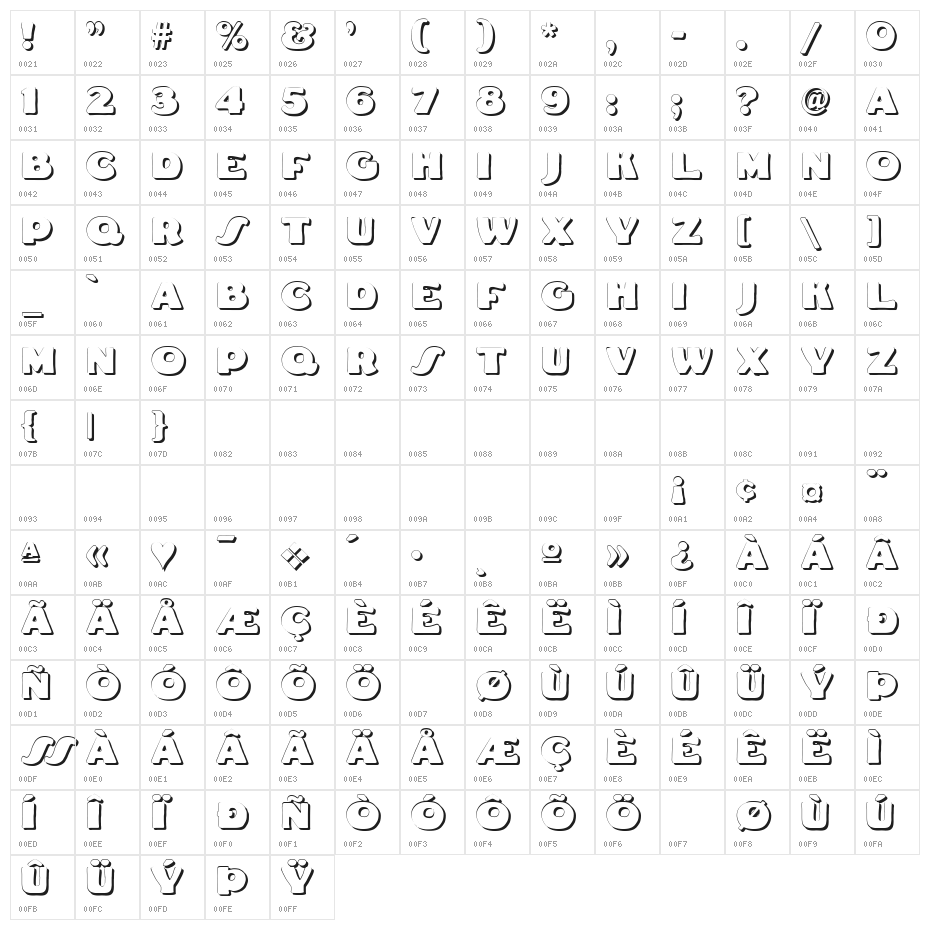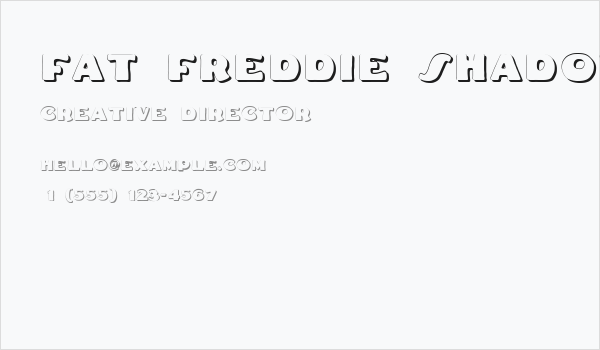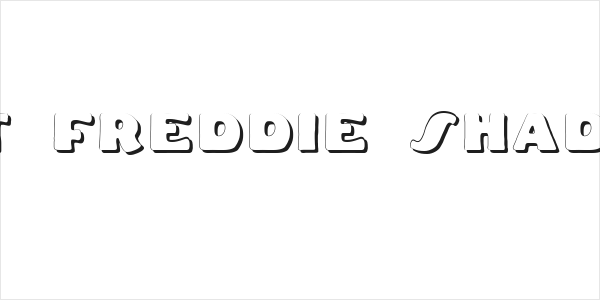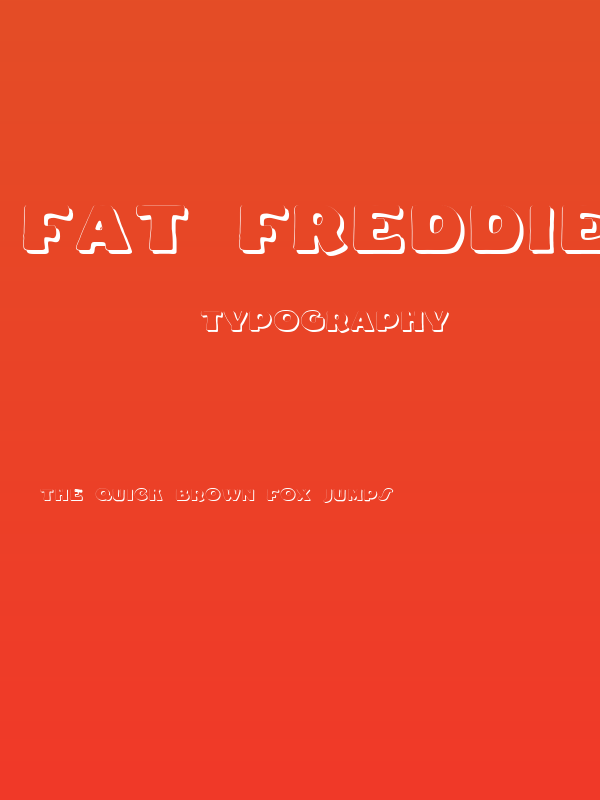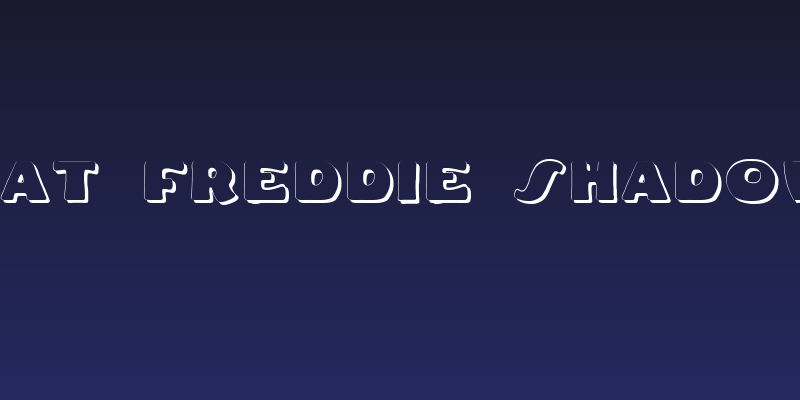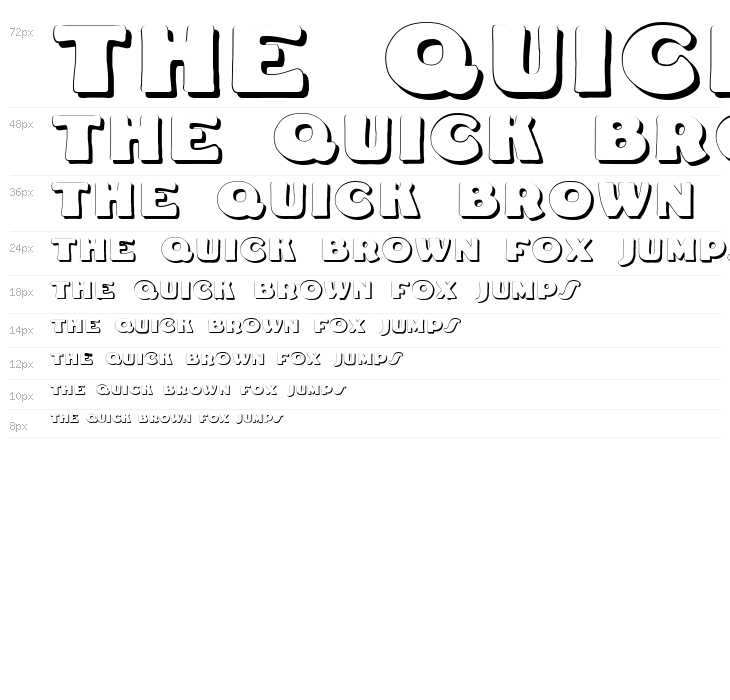
Fat Freddie Shadow Font
Fat Freddie Shadow Description
This font features a bold, playful style with a shadow effect that gives it a three-dimensional appearance. The characters are rounded and thick, creating a sense of fun and approachability. The shadow adds depth, making the letters stand out against any background. This style is reminiscent of retro or comic book aesthetics, with a modern twist. The uppercase and lowercase letters maintain consistent weight and width, ensuring readability while adding a touch of whimsy. The numbers and special characters follow the same design principles, making them cohesive with the alphabet. This font is ideal for projects that require a bold statement or a playful touch.
| Overall Style | Playful, Retro |
| Proposed Projects | Ideal for comic books, children's books, playful branding, posters, and headlines. |